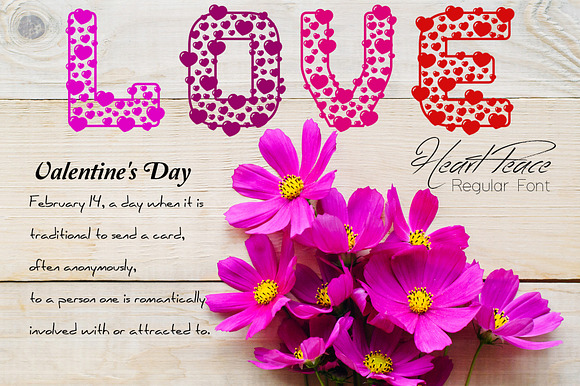
Heart Peace Font
Heart Peace Font by eSSeGraphic is a font selected for branding, posters, packaging, typography.
Why Heart Peace Font is worth a look
Heart Peace Font by eSSeGraphic fits naturally into Branding, posters, packaging, typography.